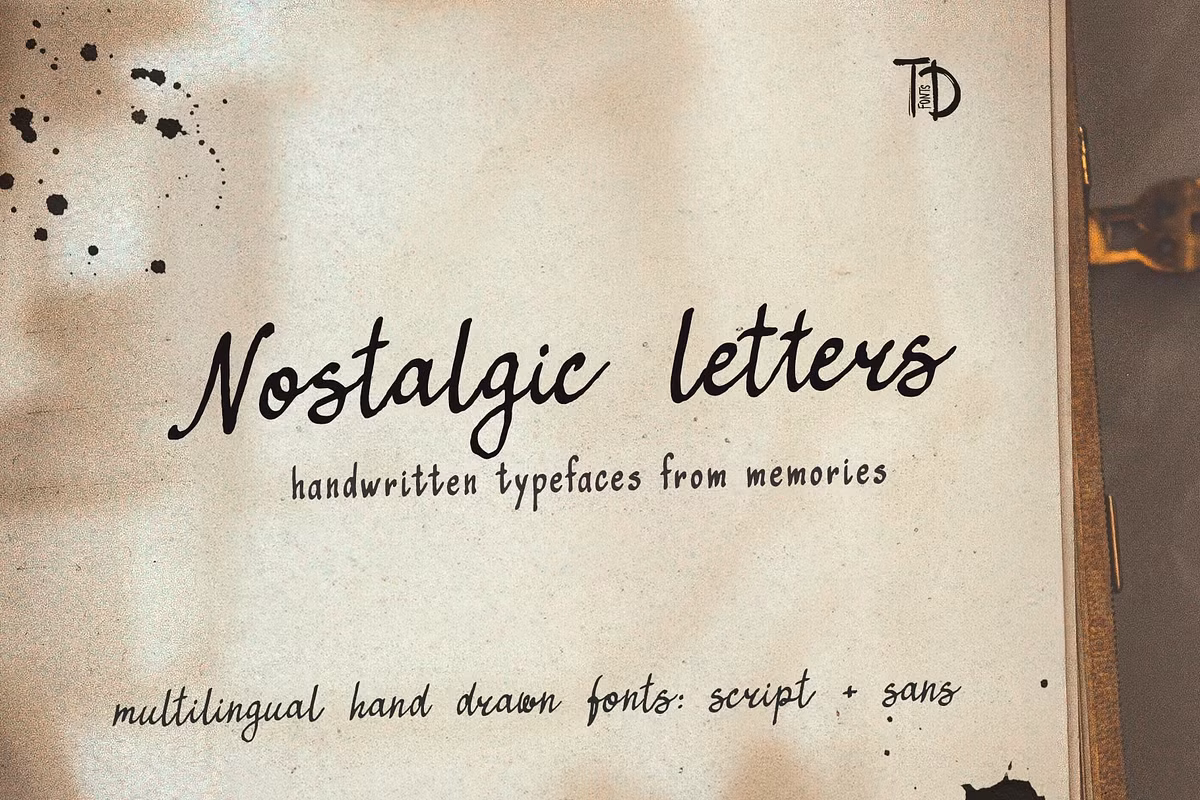
Capture the essence of retro charm with Nostalgic Letters Retro Script Font Free Download. This vintage-inspired script font features bold, flowing letterforms that evoke the feel of 70s signage and advertising, making it perfect for branding, posters, packaging, logos, and nostalgic designs.
Nostalgic Letters blends dynamic curves with a playful, hand-lettered style, bringing a touch of retro flair to your typography. It includes uppercase and lowercase letters, numerals, punctuation, and stylistic alternates—perfect for testing out bold and expressive retro layouts.